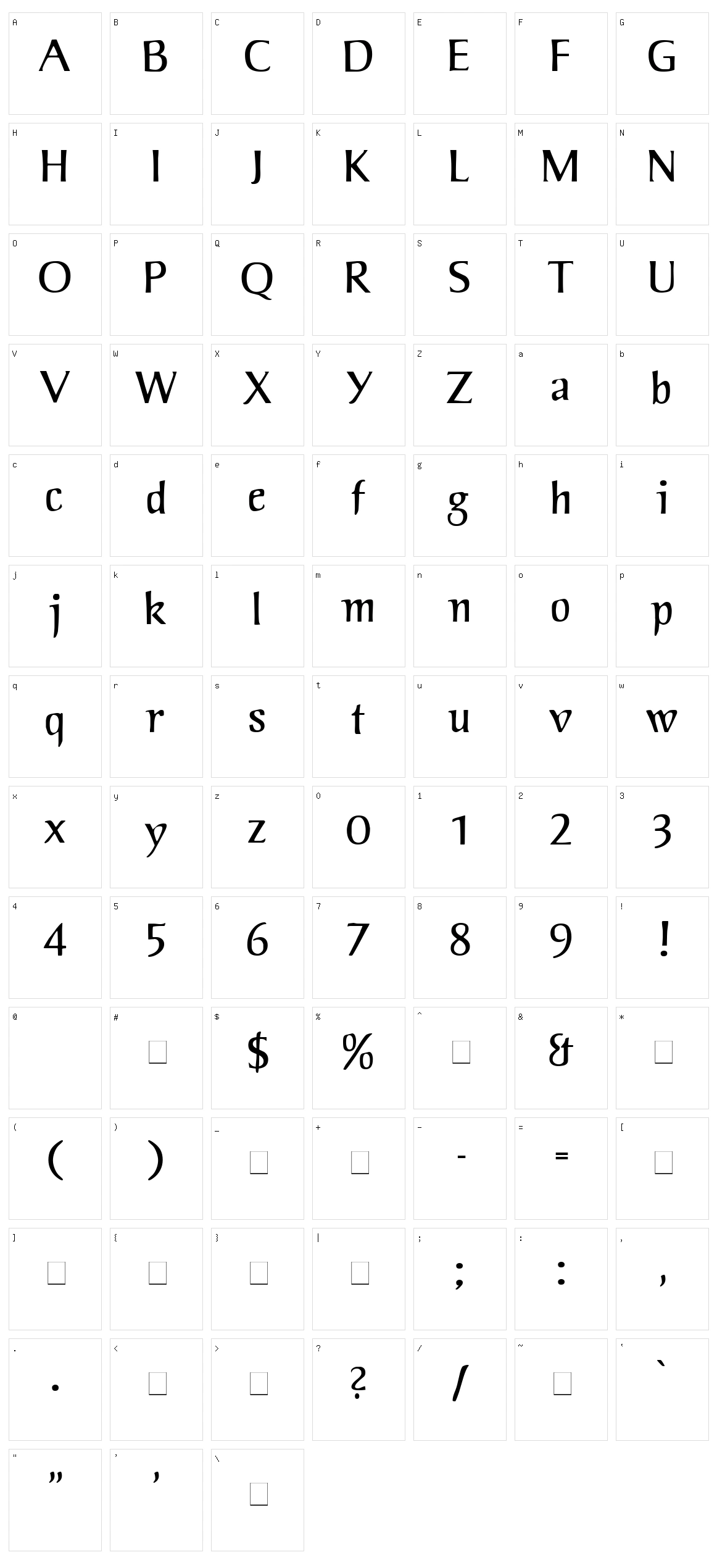
Jorvik Informal (version 0.95) by fontgrube.de
In May 2000 I found a symple of the typeface "York" in an old specimen book. It was, so to speak, love at first sight. Unfortunately no hint as to who had made that beautiful face, neither in the book nor in the internet, where York was unknown as a typeface by then. So the only solution was to make a version of my own with the abilities and the tools I had then.
Meanwhile the secret of York has been disclosed. Georg Salden designed the York face in 1966 or 1967. There is, as far as I know, thirteen years later, no digital version as yet (April 2013).
I am well aware of the shortcomings ov my 'quick-and-dirty' versons that have been pointed out in the internet. More faithfulness to the original design would have required much more time than I could spare.
"Jorvik", by the way, is the old Viking name of the city of York in North England.